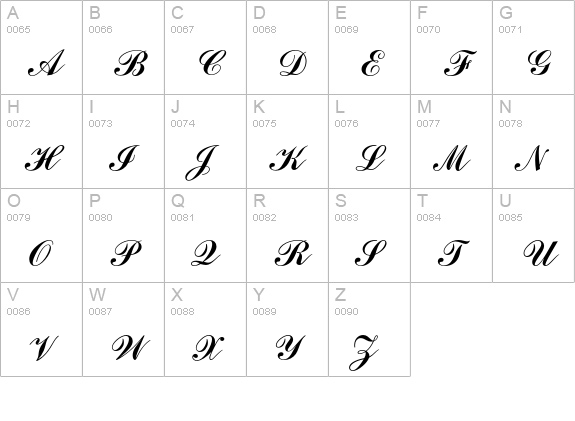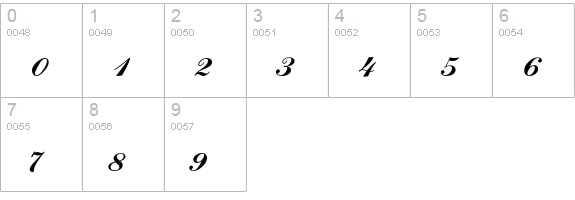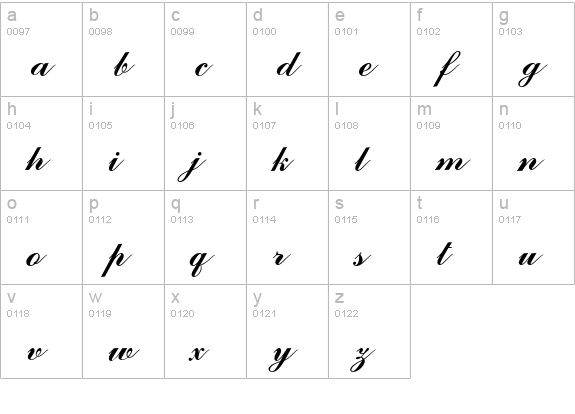
Commercial Script is a stylish and elegant font that exudes sophistication and class. With its flowing lines and graceful curves, this typeface is perfect for adding a touch of luxury to any project. Whether you're designing a logo, invitation, or packaging, Commercial Script will elevate your work to new heights. What's even better is that Commercial Script is available for free download at FontsMarket.com. This means you can easily access this stunning font without any cost, making it a valuable addition to your design arsenal. Don't miss out on the opportunity to enhance your projects with the timeless beauty of Commercial Script. Download it now and start creating stunning designs today.